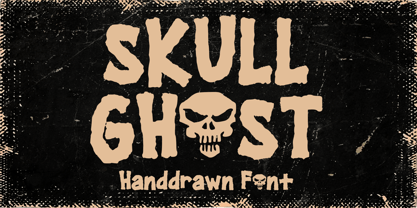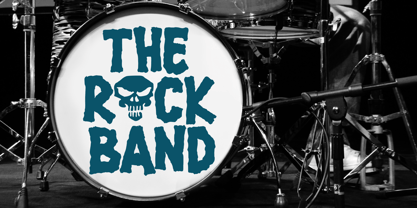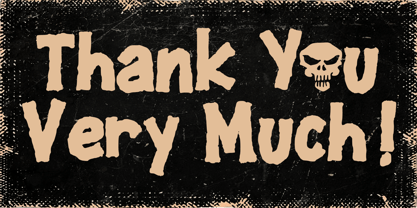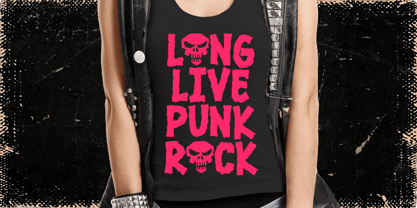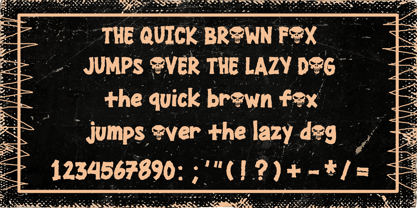
Skull Ghost
by Mvmet
The Skull Ghost Font Family was designed by Gabriel Valentinus and published by Mvmet. Skull Ghost contains 1 styles. More about this family
Skull Ghost is a cool horror Halloween and rock band display font. Skull Ghost is great for creating cool designs that scream for attention: it’s ideal for movie posters, music posters, single covers, t-shirt designs, stickers, clothing, merchandise, Halloween party needs and more. Fall in love with its incredibly cool style, and use it to create lovely designs!
Designers: Gabriel Valentinus
Foundry: Mvmet